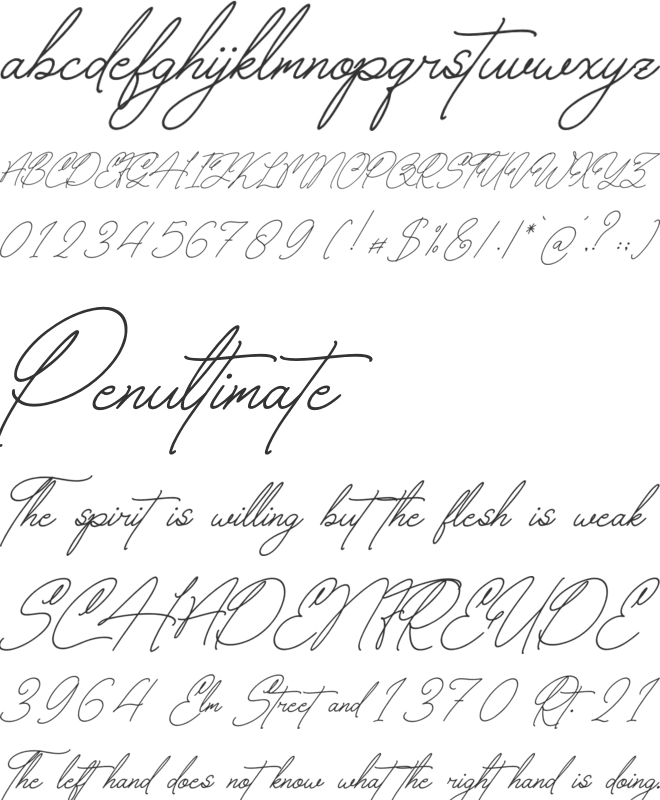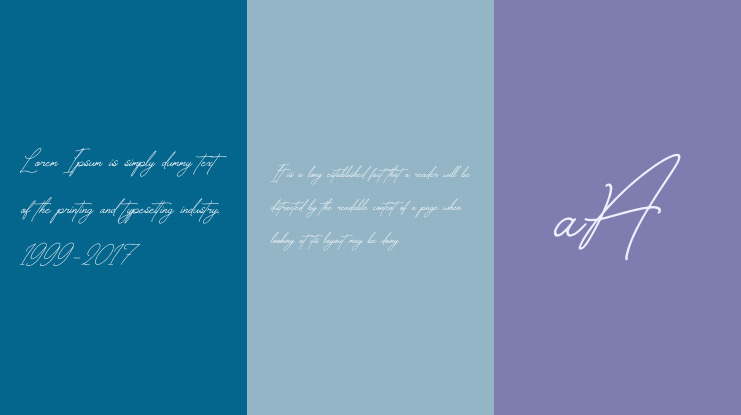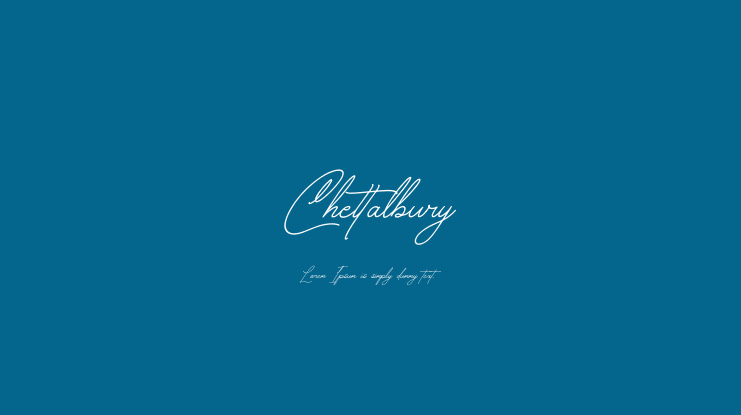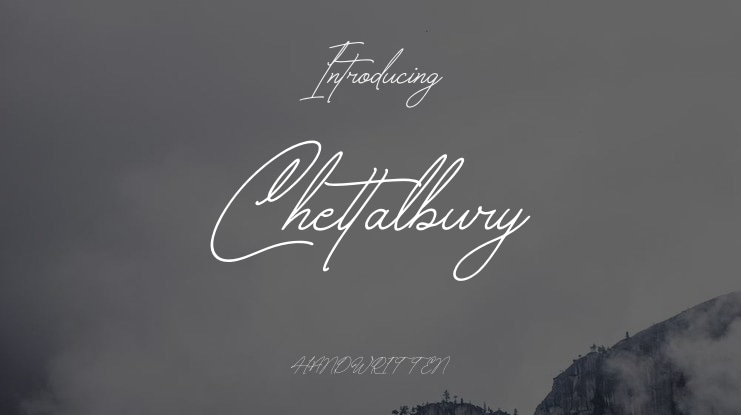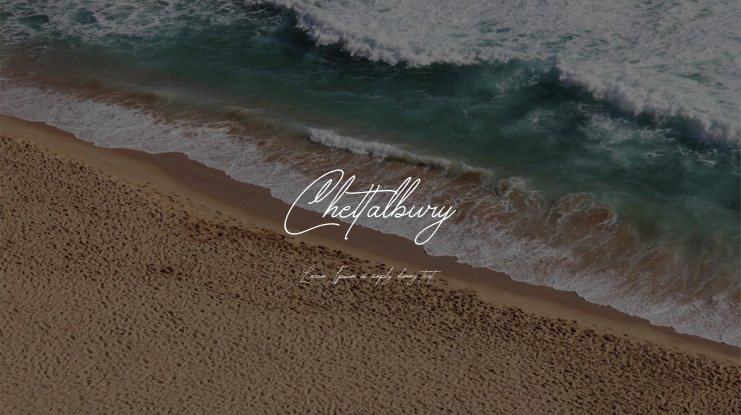
Chettalbury Handwritten Script is a versatile font perfect for various projects including logos, branding, homeware designs, product packaging, quotes, posters, t-shirts, and more. By using this font, you agree to the Product Usage Agreement which specifies that it is for personal use only and not for commercial purposes. The full version and commercial license can be purchased from the provided link. For corporate use, a Corporate license must be acquired. Custom licenses are available upon request. Donations are also appreciated via the provided Paypal account link.
Font Chettalbury Handwritten Script adalah font yang sangat cocok untuk berbagai proyek mulai dari logo, desain branding, kemasan produk, kutipan, poster, kaos, dan lain sebagainya. Dengan menggunakan font ini, Anda setuju dengan Perjanjian Penggunaan Produk yang menegaskan bahwa font ini hanya untuk penggunaan pribadi dan bukan untuk tujuan komersial. Versi lengkap dan lisensi komersial bisa dibeli melalui tautan yang disediakan. Untuk penggunaan korporat, lisensi Korporsat harus diperoleh. Lisensi kustom juga tersedia jika diminta. Donasi sangat dihargai melalui tautan akun Paypal yang disediakan.